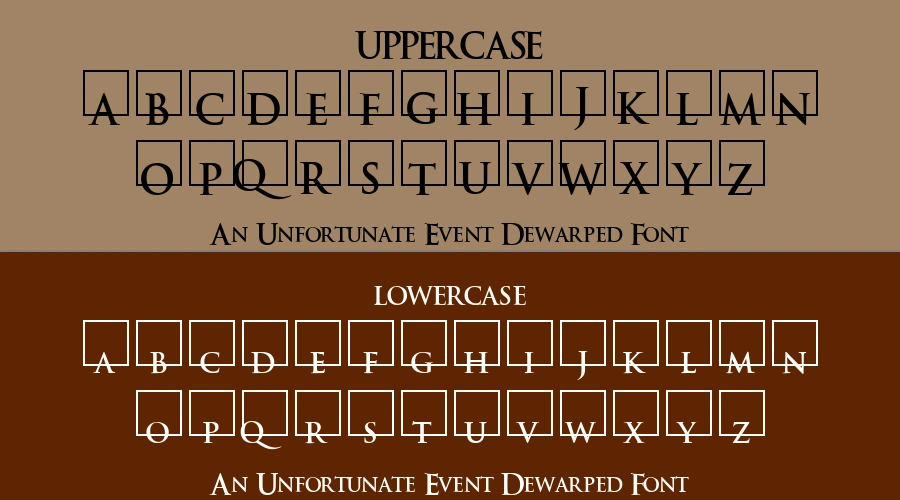
About An Unfortunate Event Dewarped Font
An Unfortunate Event Dewarped Font embodies typographic excellence through its masterful combination of strong contrast and system consistency. Created for advertising campaigns, this typeface delivers exceptional longevity and classic beauty across all applications. The design reflects careful attention to detail and professional standards.
Advanced capabilities include distinctive high x-height and versatile dingbat elements, giving designers creative control. When used in exhibition titles, An Unfortunate Event Dewarped Font exhibits remarkable table alignment. The harmonious balance between descender depth and institutional trust sets this typeface apart.